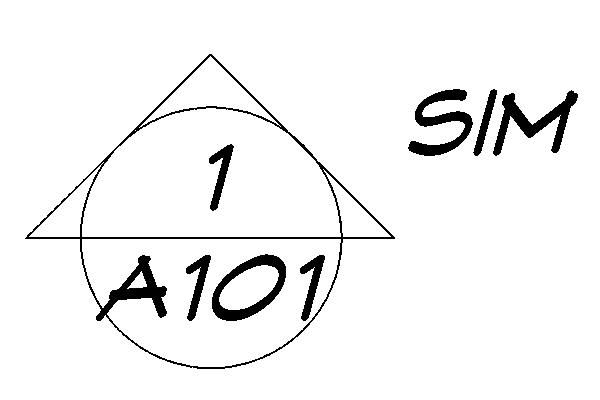
ARCHITXT FONTS
Is there anyone there able to help me get this font ARCHITXT fonts as shown in the pic here for Archicad. I have it in Autocad but it is in SHX format and can't use it for Archicad.
Find the similar True Type font, and assign it in the translation font table. If you wsnt to translate SHXs to TTFs, you have to have both of the same name. All the standard SHXs have corresponding TTFs provided by Autodesk, when you install AutoCAD. So the person you got the drawing from might have the TTF?
I have the font for Mac.
A good substitute is a font pack available from Objects On Line called " Architects Font Pak" and has a font called MrHand and Heavy Hand that work really well and look good. You can purchase a font from one of the font merchants called "Graphite" that is also very nice. Don't know of any freebees at present.
I think that a similar "ArchiTEXT.TTF" is included with the "MSA" content. It may not be a perfect match, but it is a free alternative.
The company I work for has their own font, which is a shx file. Is there a way for me to use it in ArchiCAD. What I have been doing is use a font in ArchiCAD, then when saving, translate the font to their font style. I use ArchiCAD they use AutoCAD.
A good substitute is a font pack available from Objects On Line called " Architects Font Pak" and has a font called MrHand and Heavy Hand that work really well and look good.